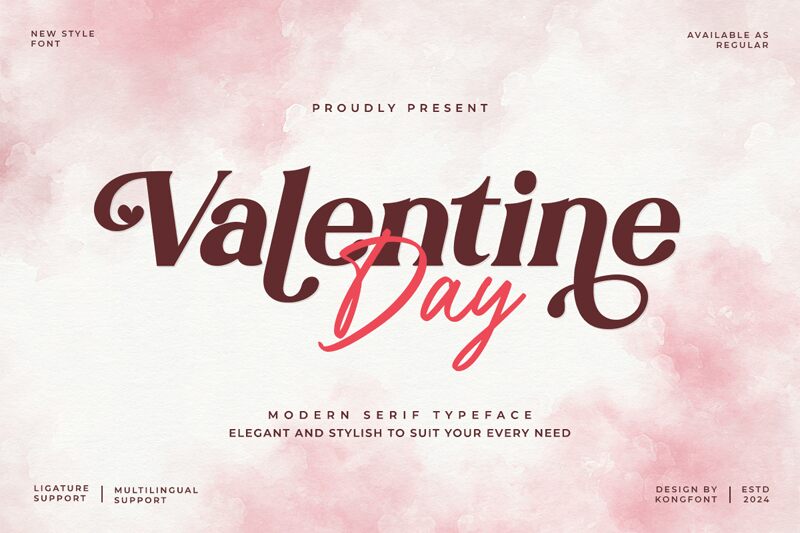
Valentine Day
Valentine Day font by Kong Font is a free serif font inspired by classic typefaces. The bold body and simple design help it transmit an elegant yet formal design with a high readability level. Each stem ends with a flared square finial, which gives the whole text less strictness and a more gentle feel.
The font looks extraordinary in titles inside invitations, certificates, degrees, diplomas, posters, wedding cards, birthday cards, brochures, and signage. It has its way of catching attention while still transmitting the intended message clearly and traditionally.